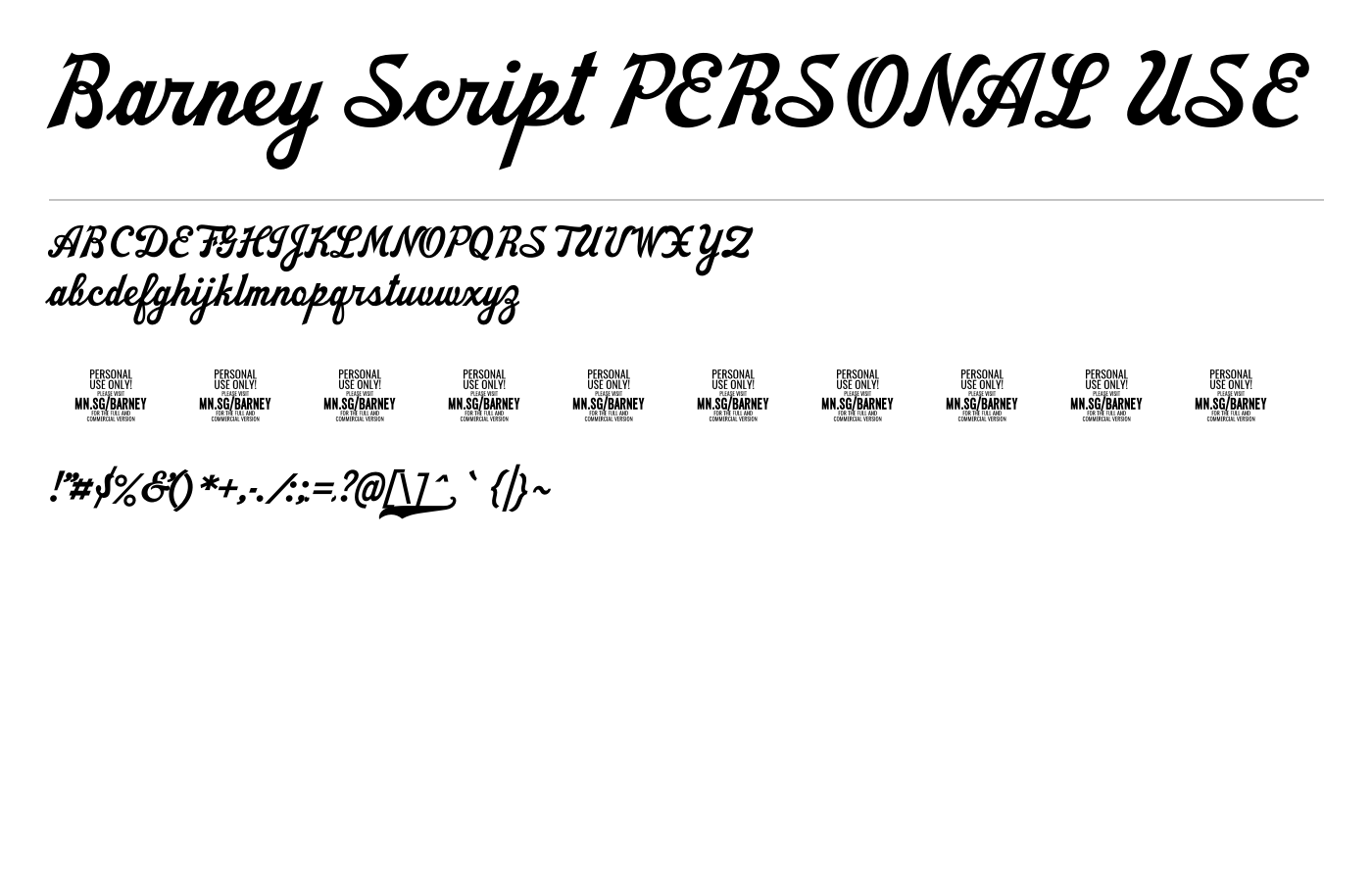
Barney Script PERSONAL USE is an elegant and playful script font with smooth, flowing strokes and moderate contrast, giving it a lively handwritten feel. Its rounded, slightly bold letterforms with unique cursive details make it suitable for creative and personal projects such as invitations, branding, and stylish headlines where a friendly yet sophisticated touch is desired. This font works especially well in contexts that benefit from a warm, charming, and approachable aesthetic.